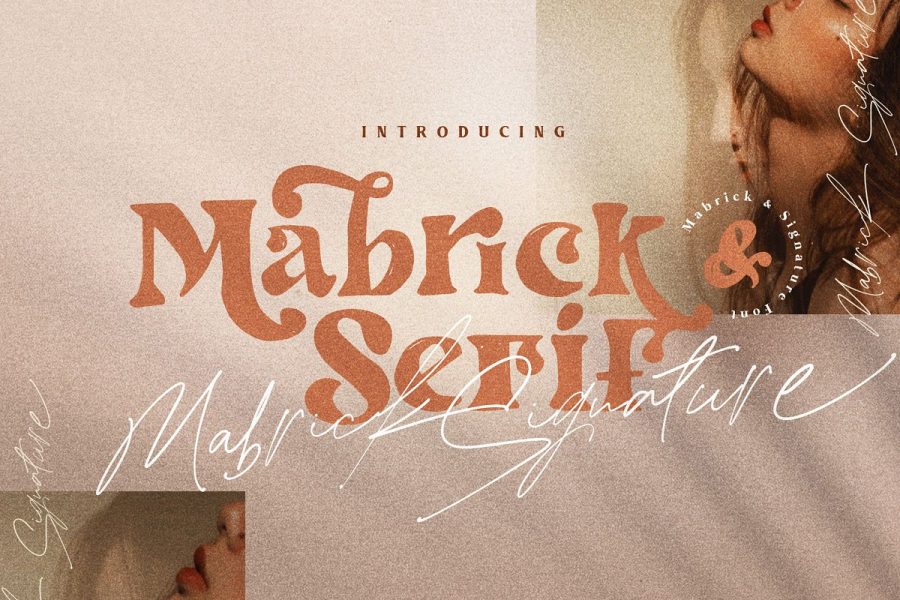
Mabrick Font Serif Rough Free Demo
Mabrick Font Serif Rough Free Demo is a playful and elegant font. It includes a hand-drawn serif that already matched up to together for your next projects. This font is suitable for movie posters, flyers, magazines, kid books, and more. It is an amazing looking for any project you have. This font is available for the OTF format file that you can install on your devices as well. However, this free font is coming with a personal use license, but you can get the commercial license by purchasing it on the premium version button below.